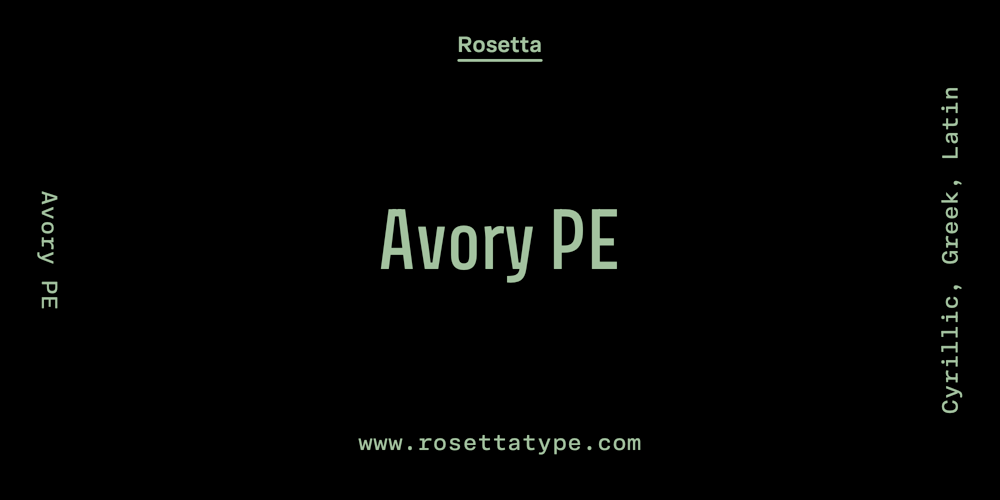
Avory PE Font Family was designed by Sláva Jevčinová and published by Rosetta. Avory PE contains 18 styles and family package options. Avory is a gently condensed sans that challenges convention. It wears expressive details like a low optical center, wide horizontal crossbars, and lettering-inspired touches to the diagonals and terminals. Tall, with broad shoulders, it is easily spotted from afar. Avory was inspired by the lettering work of Czech designer Jaroslav Benda, a lesser known treasure of mid-century graphic design. An array of alternate forms offer variation in descenders and a choice between open and closed counters, akin to the fluidity of lettering. Diacritics that are exuberant, not hesitant, and experimental contextual alternates keyed in for Czech and Slovak letter combinations complete the effect. Avory is a full-fledged typographic power tool: nine weights, complete with italics, small caps, a wide range of symbols, and support for Greek and Cyrillic scripts included.